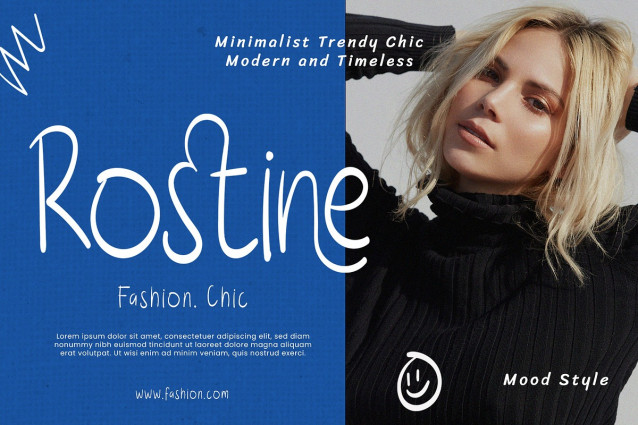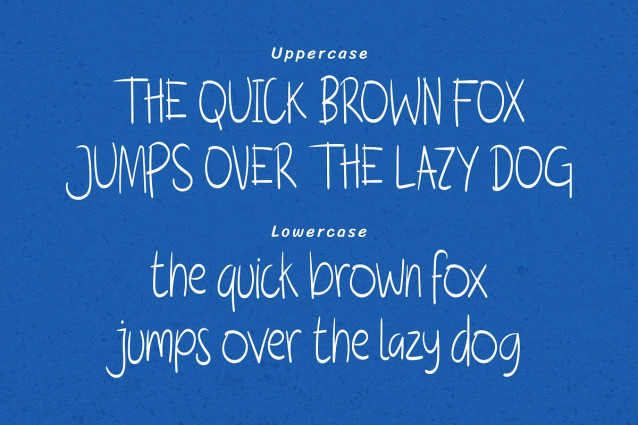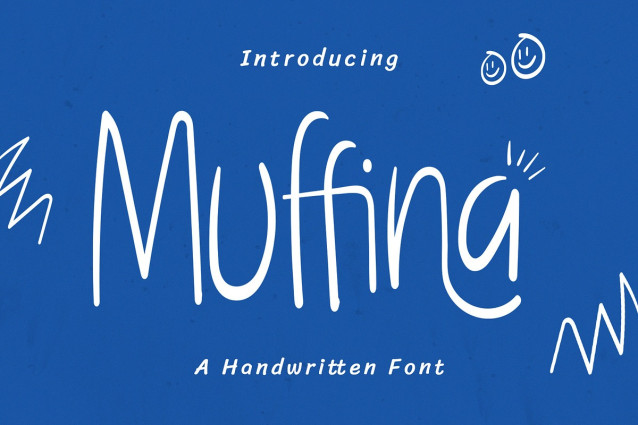
Muffina Handwritten Font
Muffina Handwritten Font: A trendy handwritten font, perfect for adding a personal touch to your designs. Elegant, versatile, and naturally classy.
Uppercase & Lowercase Characters: Fully designed for a complete typographic experience
Numerals & Punctuation: All the numbers and punctuation marks you need for any design task
Multilingual Support: Includes characters for multiple languages, ensuring global usability
High-Quality Design: Each font is crafted with attention to detail, ensuring a polished and professional look